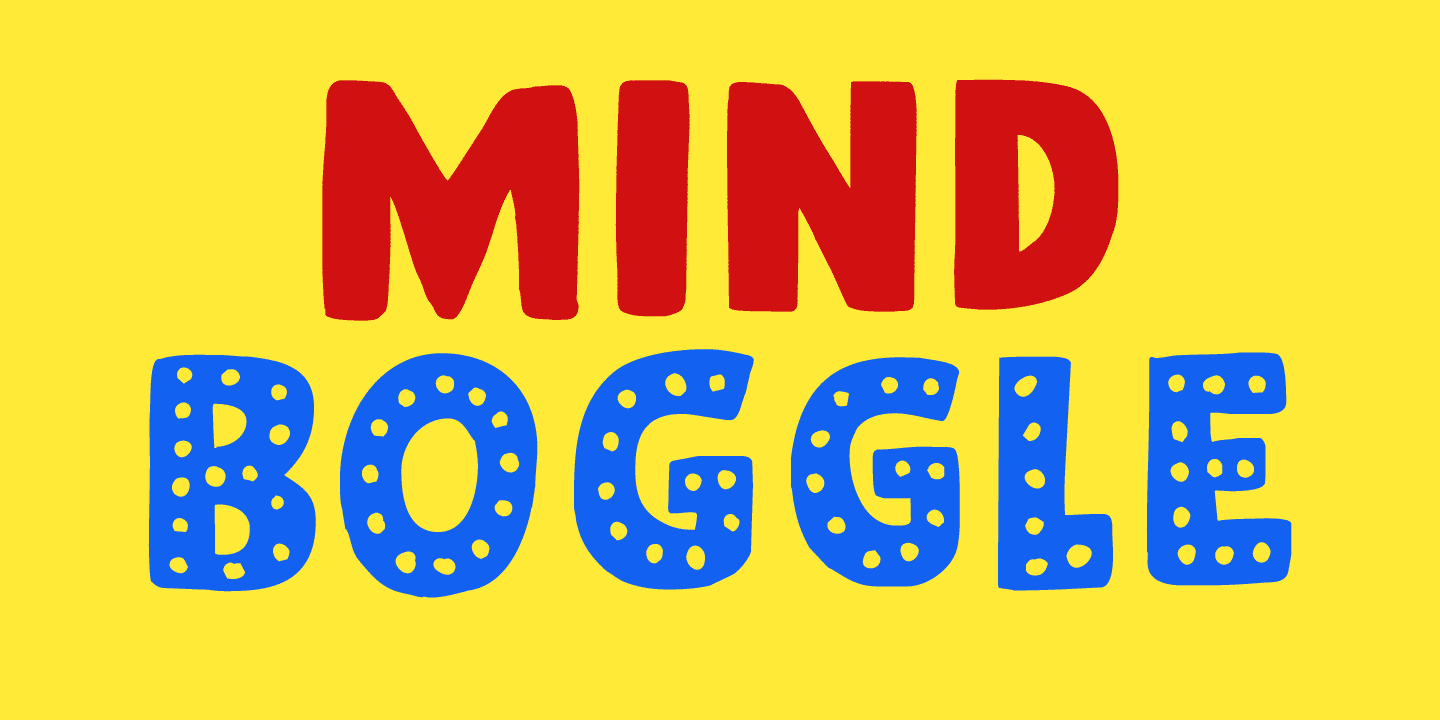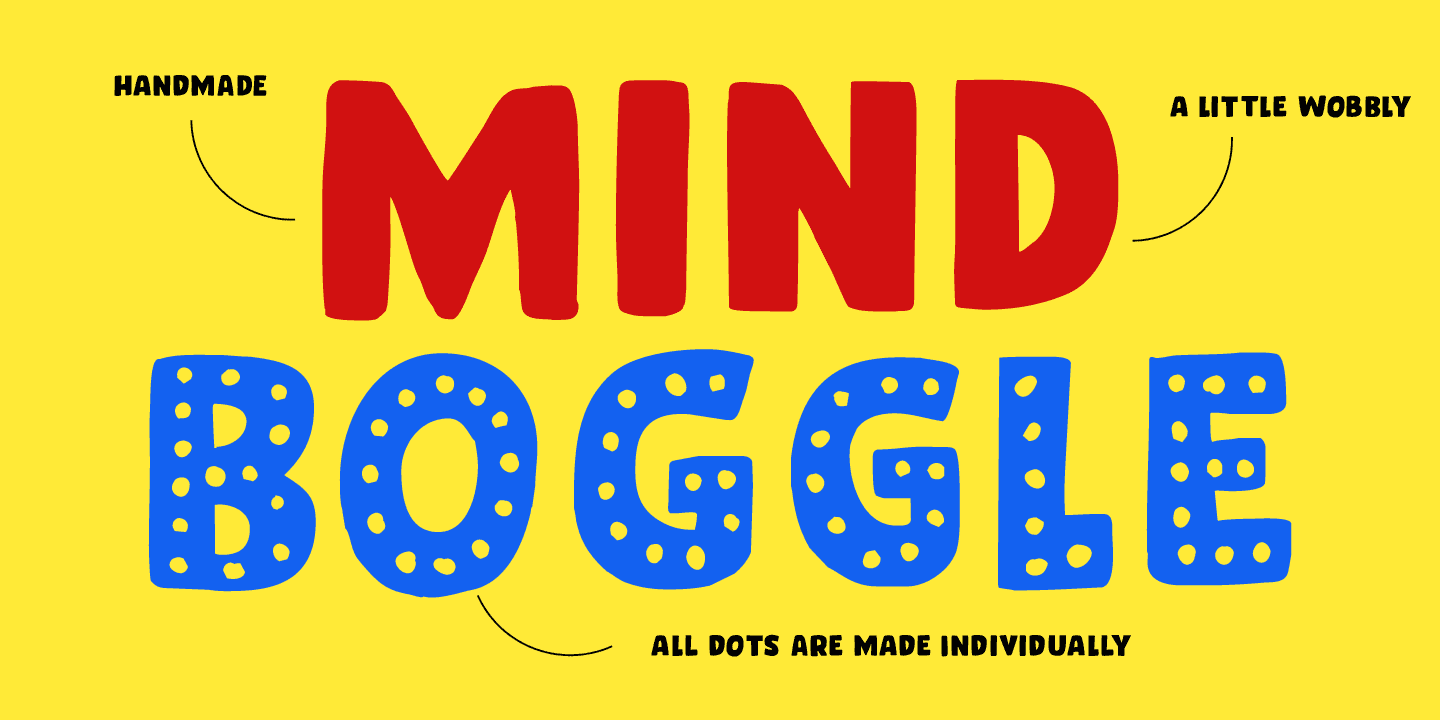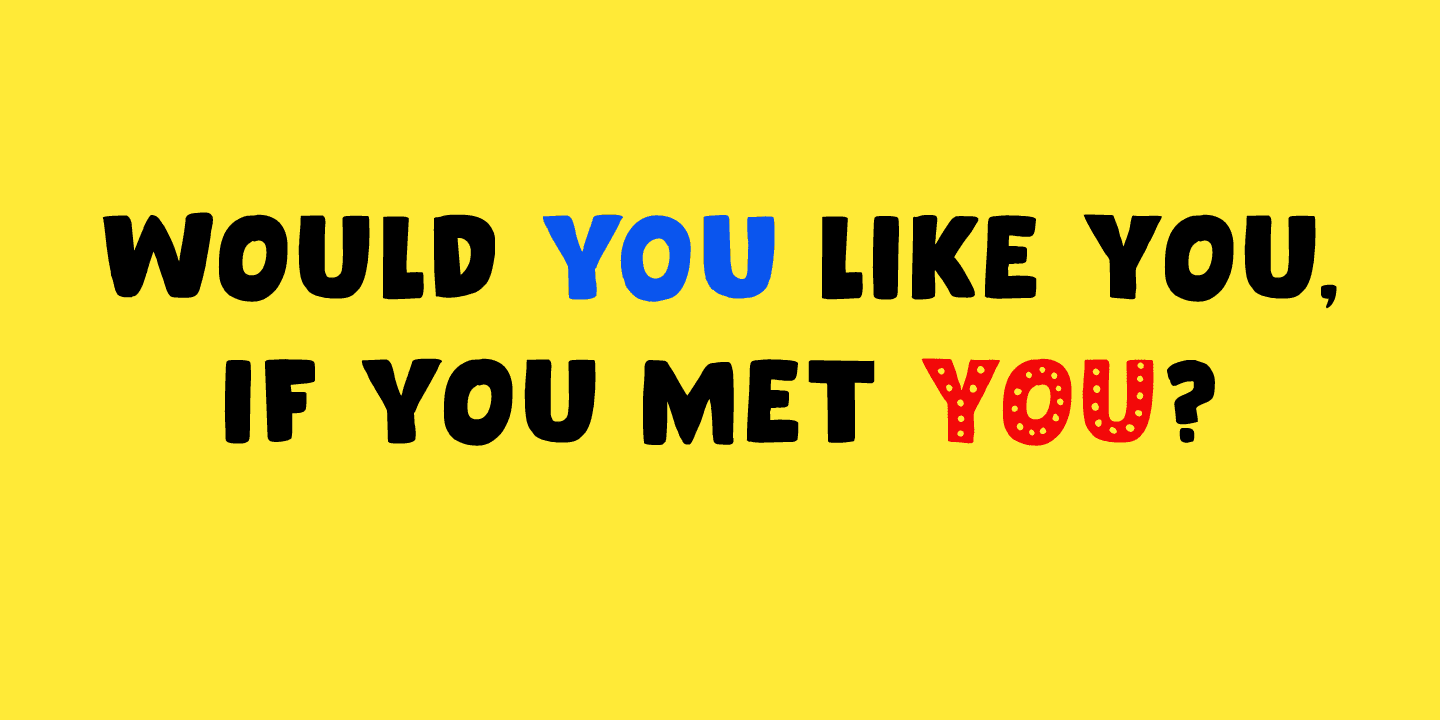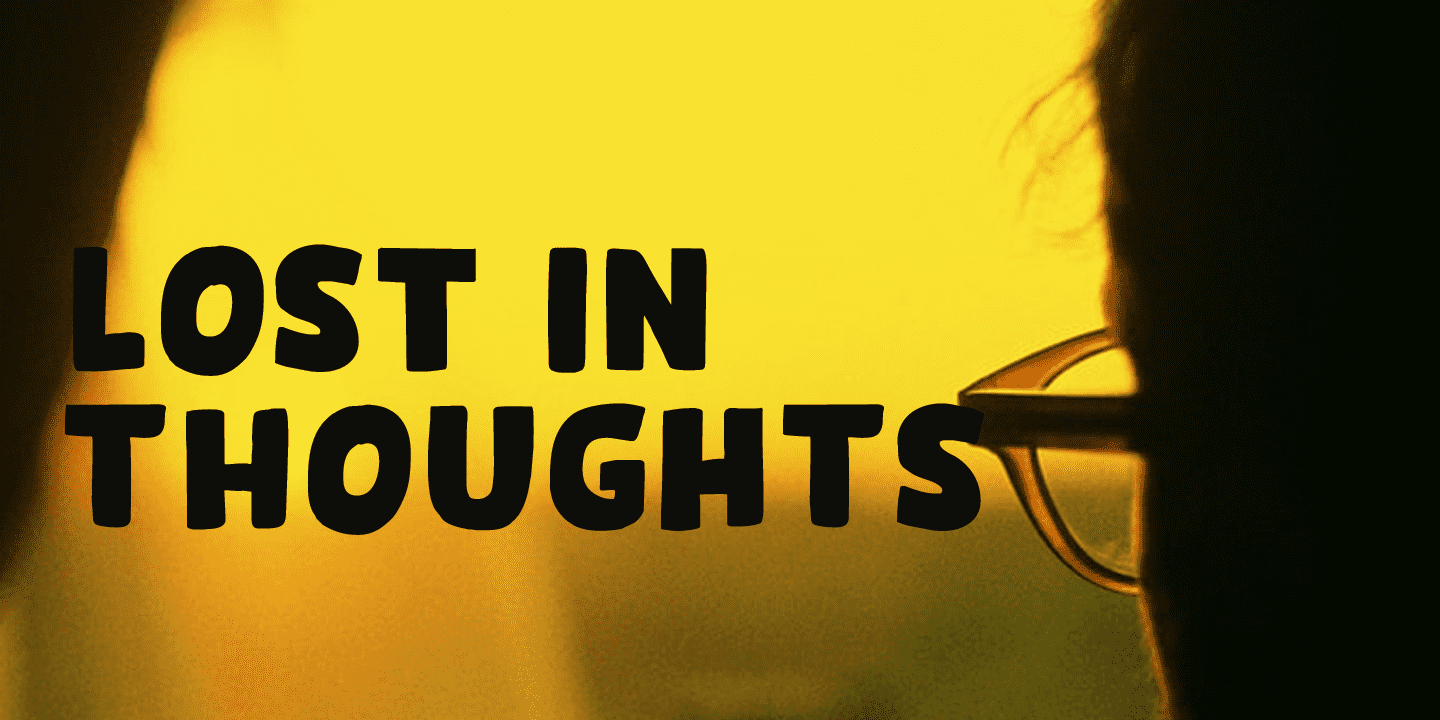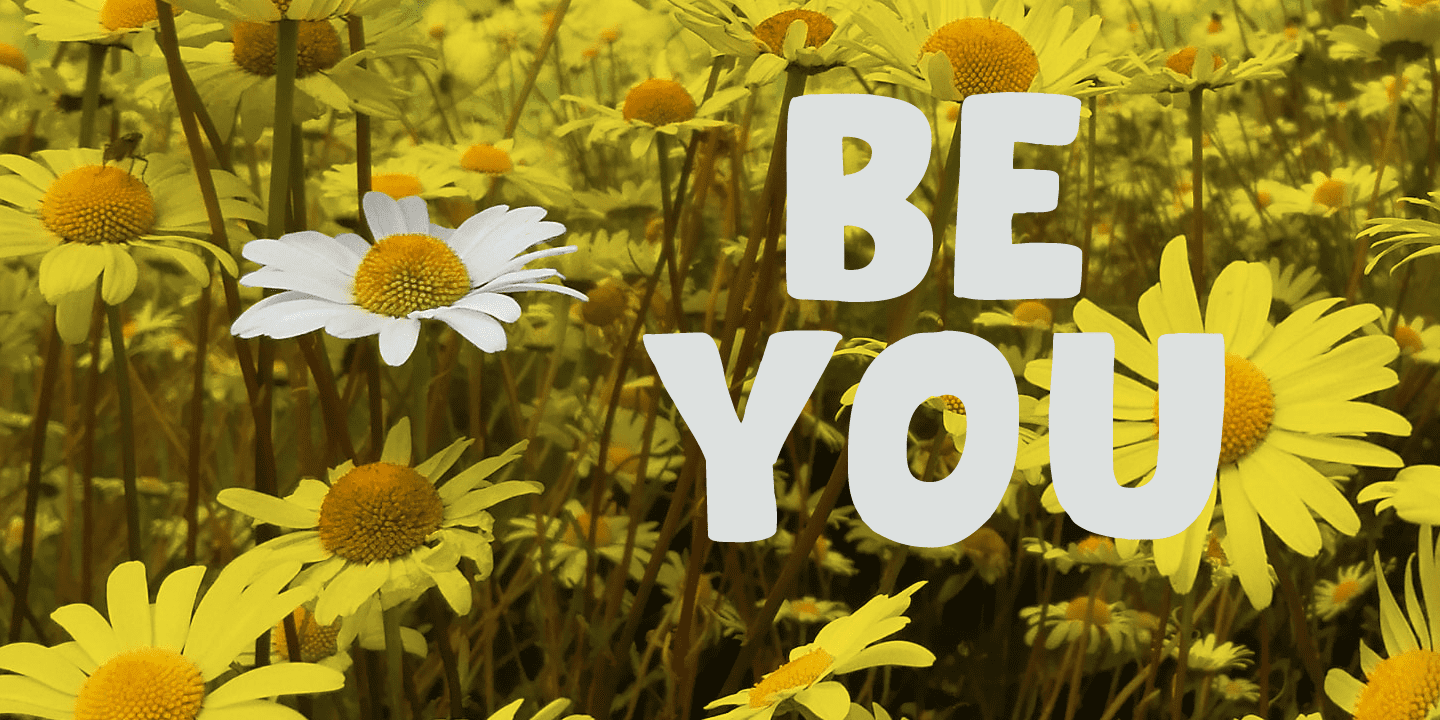
Mind Boggle was made during the renovation of our fixer upper farm house. We had to demolish an old annexe (because it was unsafe) and it caused us some stress, as one wrong movement of the excavator would mean at least a partial collapse of our home… Luckily the driver was a pro and it was mind boggling to see what he could do with a huge machine like that. Mind Boggling? Ah! Check!
Mind Boggle is a handmade, all caps, headline font. It is a bit wobbly in places, but it comes with loads of character. The dotty style comes with thousands of hand made dots. They’re not perfect, they’re not even round, but they are unique!